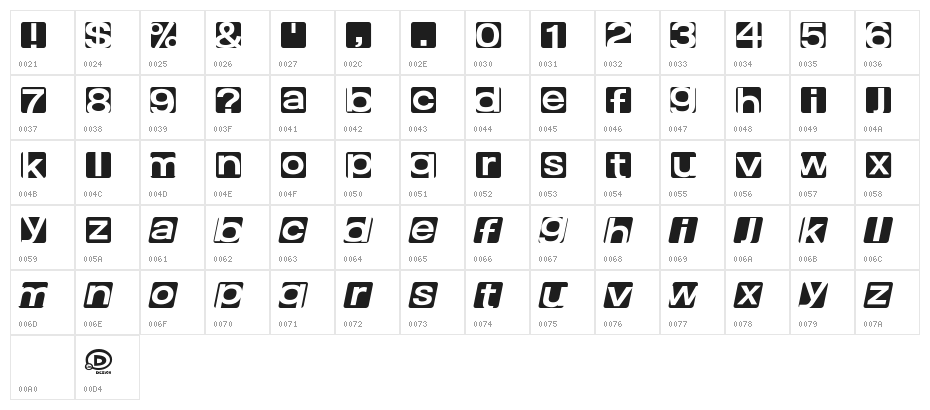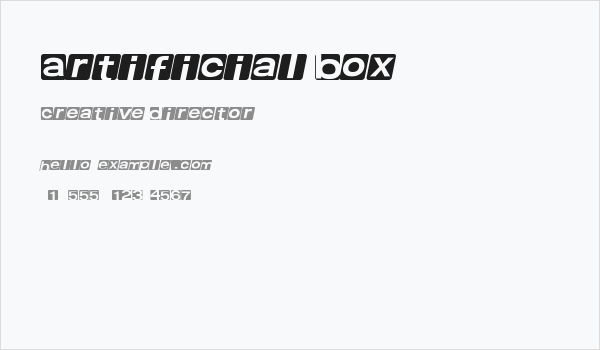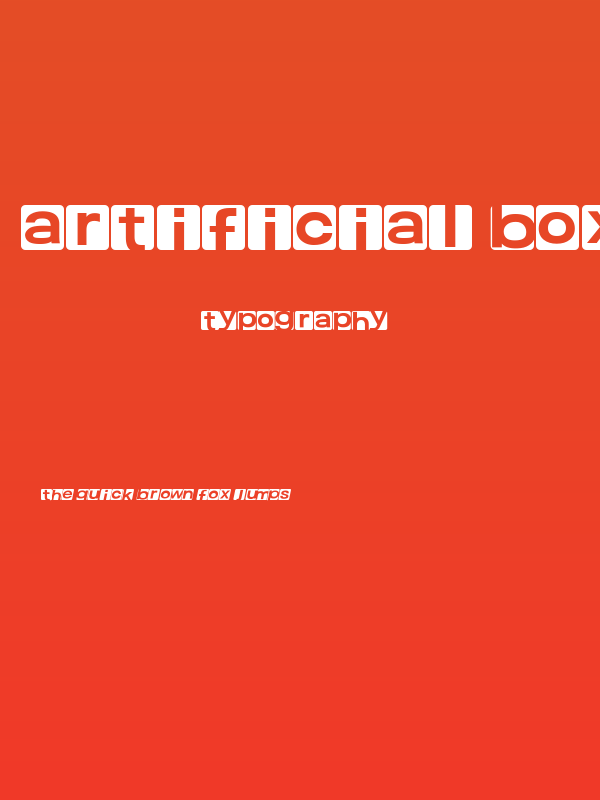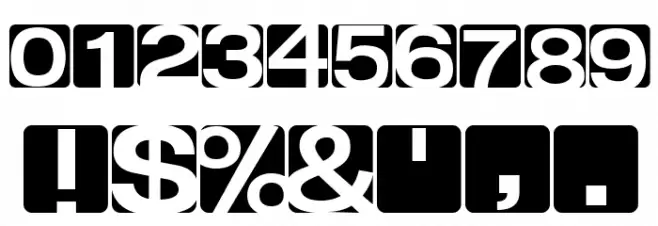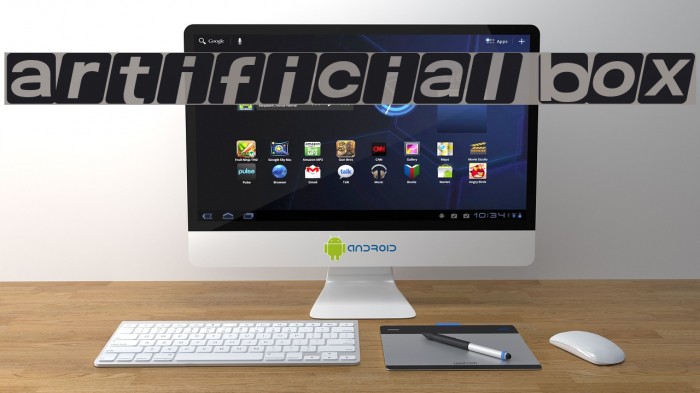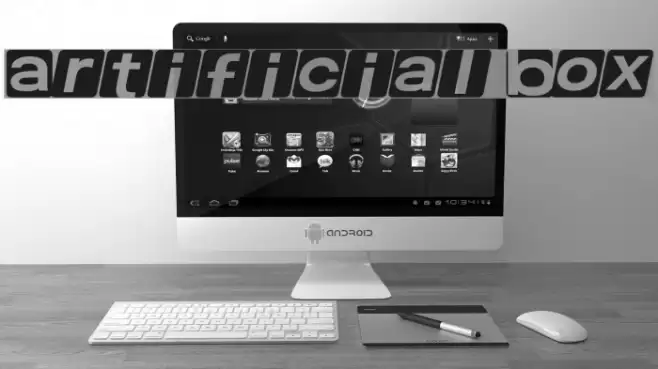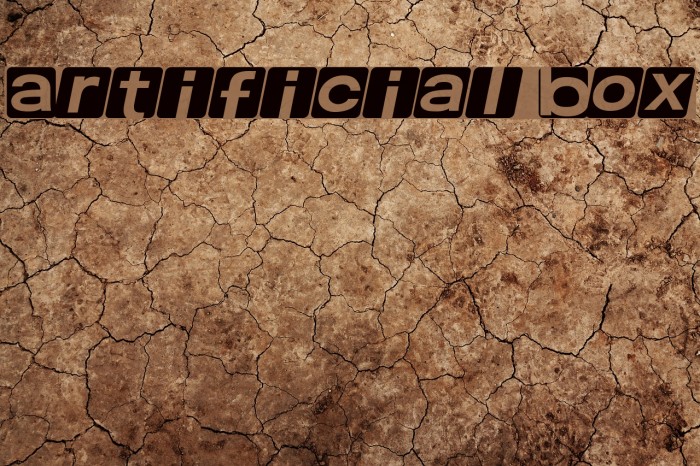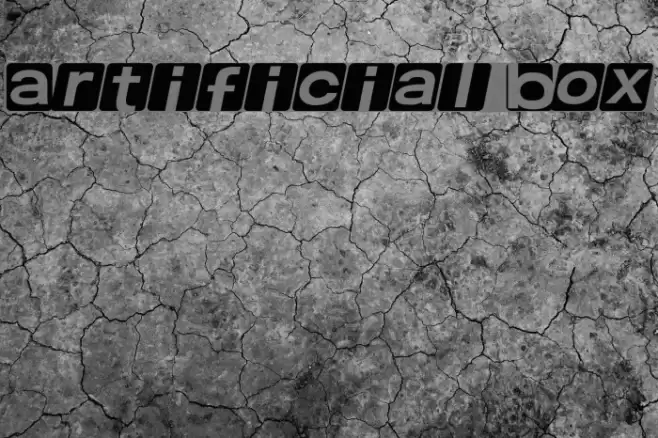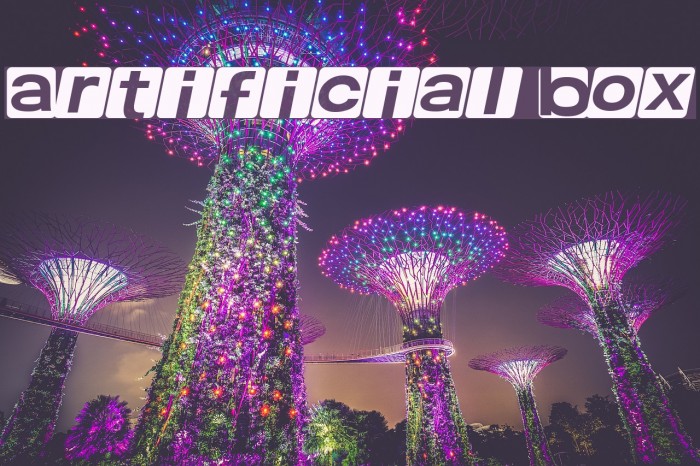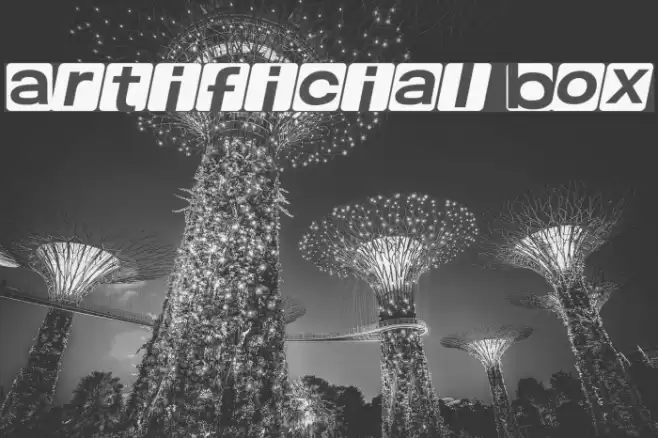
Artificial Box Font
Artificial Box Description
This font features a bold and modern design with a unique boxy appearance. Each character is enclosed within a square or rectangular shape, creating a striking and cohesive look. The letters are bold and have a high contrast between the thick strokes and the negative space, making them highly legible and impactful. The geometric style gives it a futuristic and tech-inspired feel, suitable for digital and print media. The font maintains consistent width across characters, contributing to its uniform and structured appearance.
| Use Case | Logos, Headlines, Posters |
| Proposed Projects | Ideal for technology branding, digital media, posters, and futuristic designs. |